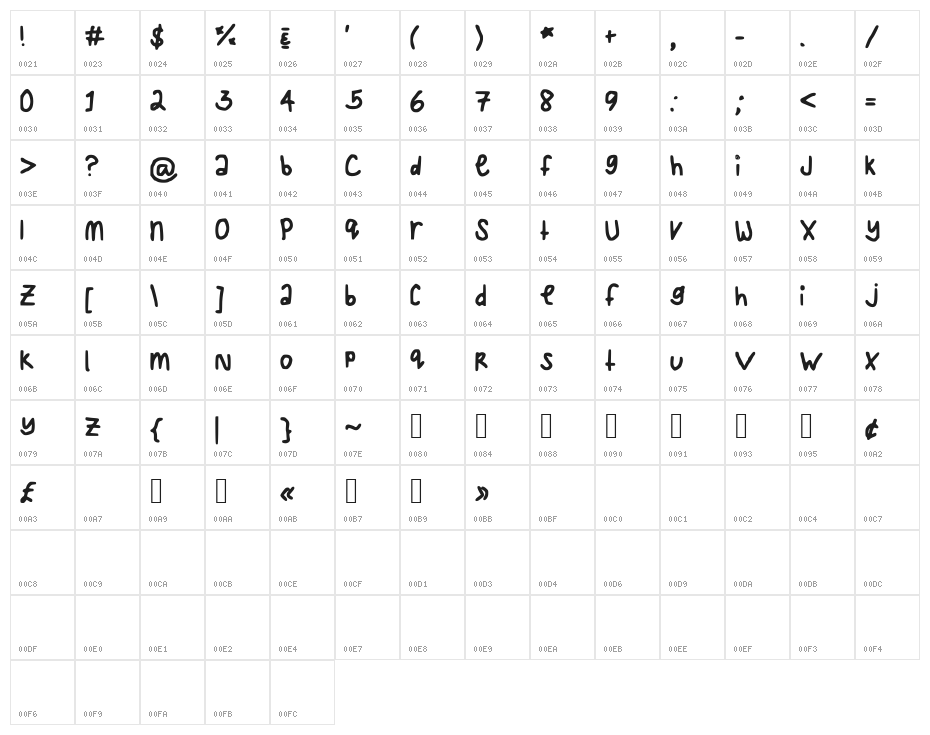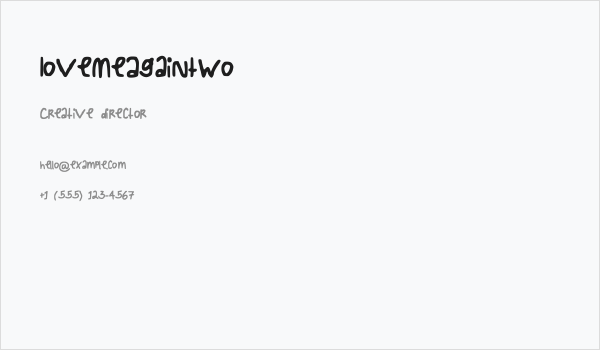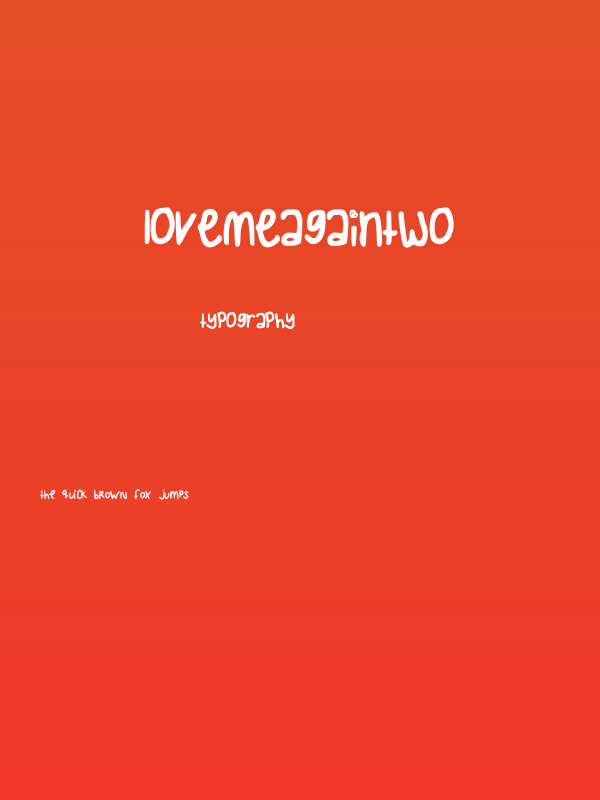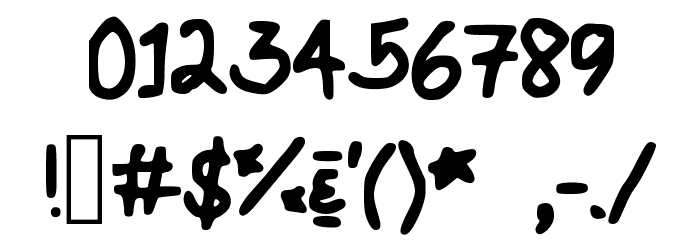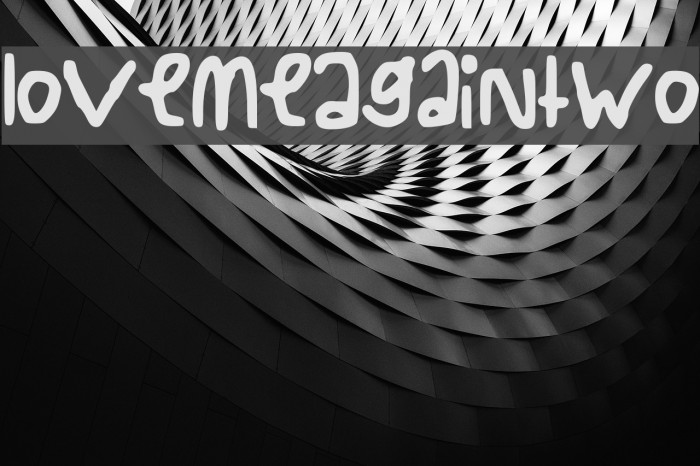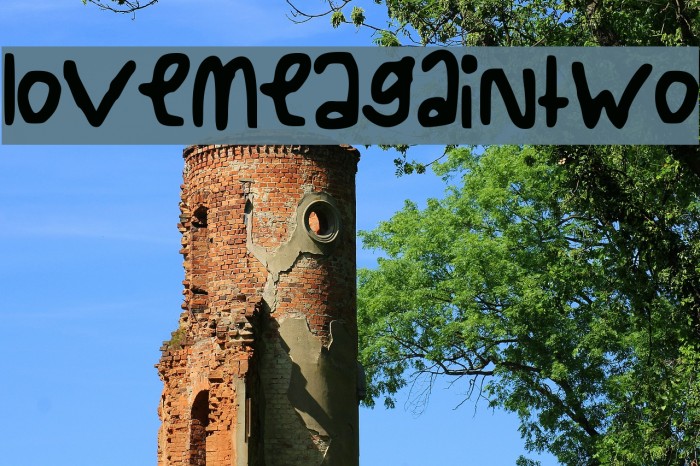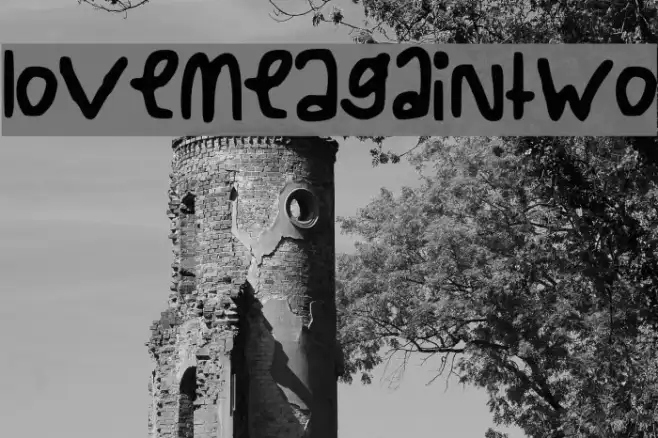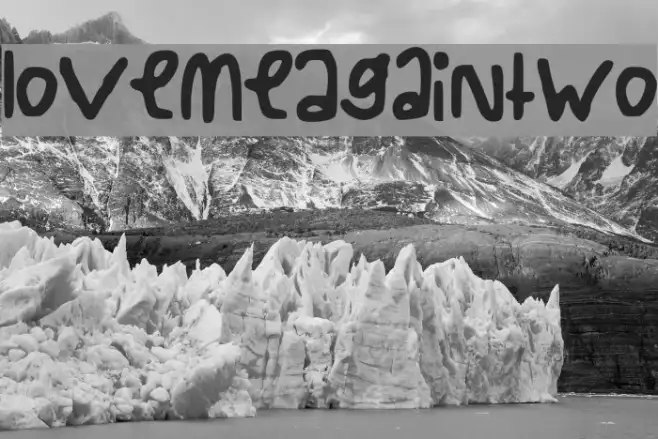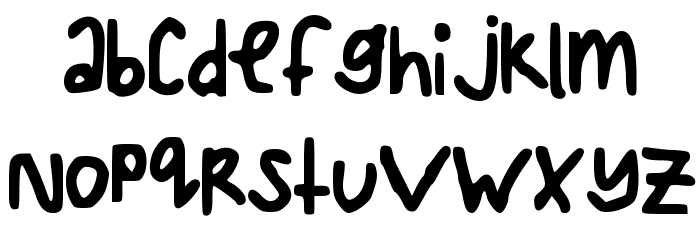
LoveMeAgainTwo Font
LoveMeAgainTwo Description
This playful and whimsical font features a handwritten style with rounded, bold characters. The letters have a casual, informal appearance, making them ideal for projects that require a friendly and approachable feel. The strokes are consistent in thickness, giving the font a cohesive look. The characters are slightly irregular, adding to the charm and uniqueness of the design. This font includes both uppercase and lowercase letters, numbers, and a variety of special characters, making it versatile for different uses.
| Use Case | Headlines, Logos, Social media graphics |
| Proposed Projects | Ideal for children's books, greeting cards, playful branding, and social media graphics. |